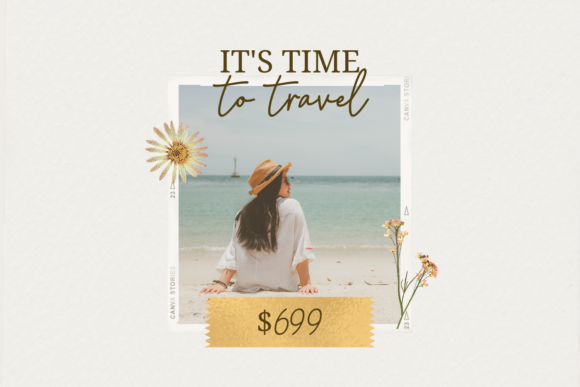
Introducing Flighty Font: The Perfect Monoline Handwritten Font for Your Designs
Are you tired of using the same old fonts for your designs? Do you want to add a touch of natural elegance and simplicity to your projects? Look no further than Flighty Font, a beautiful monoline handwritten font that is perfect for designers who want to create unique and creative designs.
What is Flighty Font?
Flighty Font is a monoline handwritten font that is designed to provide a touch of natural elegance to your designs. It is a simple yet creative font that is perfect for a wide range of design projects, from branding and advertising to packaging and digital media.
As a monoline font, Flighty Font features a single line width throughout, giving it a clean and modern look that is both stylish and sophisticated. The font is also handwritten, which means that it has a personal and organic feel that is perfect for designers who want to add a touch of warmth and personality to their designs.
What Can I Use Flighty Font For?
Flighty Font is a versatile font that can be used for a wide range of design projects. Here are some ideas to get you started:
- Branding and Advertising: Use Flighty Font to create unique and memorable brand identities, including logos, business cards, and letterheads.
- Digital Media: Use Flighty Font to create engaging and stylish digital content, including social media graphics, blog posts, and email newsletters.
- Packaging: Use Flighty Font to create eye-catching and effective packaging designs that stand out on store shelves.
- Wedding and Event Design: Use Flighty Font to create beautiful and elegant wedding invitations, programs, and other event materials.
Features of Flighty Font
Flighty Font has a number of features that make it a great choice for designers. Here are some of the key benefits of using Flighty Font:
- Unique and Creative: Flighty Font is a unique and creative font that will help your designs stand out from the crowd.
- Easy to Read: Despite its creative and artistic feel, Flighty Font is easy to read and understand, making it perfect for use in body text and other long-form content.
- Versatile: Flighty Font is a versatile font that can be used for a wide range of design projects, from formal and professional to casual and playful.
- High-Quality: Flighty Font is a high-quality font that is designed to provide a professional and polished look to your designs.
Tips for Using Flighty Font
Here are some tips for using Flighty Font in your designs:
- Use it as a Headline Font: Flighty Font is perfect for use as a headline font, where its creative and artistic feel can really shine.
- Pair it with a Serif Font: For body text and other long-form content, consider pairing Flighty Font with a serif font to create a nice contrast and add visual interest to your designs.
- Experiment with Colors: Flighty Font looks great in a wide range of colors, so don’t be afraid to experiment and find the perfect color to match your brand and design style.
- Use it in Combination with Other Fonts: Flighty Font can be used in combination with other fonts to create a unique and creative look. Try pairing it with a bold sans-serif font for a modern and edgy look.
In conclusion, Flighty Font is a beautiful monoline handwritten font that is perfect for designers who want to add a touch of natural elegance and simplicity to their designs. With its unique and creative feel, easy readability, and versatility, Flighty Font is a great choice for a wide range of design projects. Whether you’re looking to create a brand identity, design a website, or create engaging digital content, Flighty Font is a great option to consider.